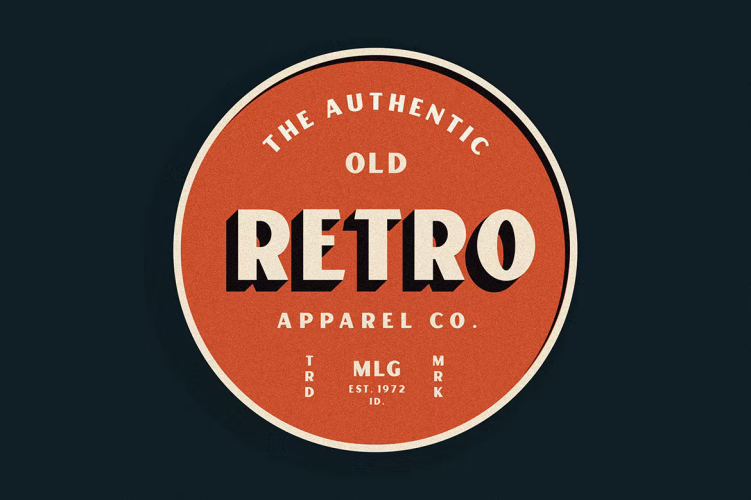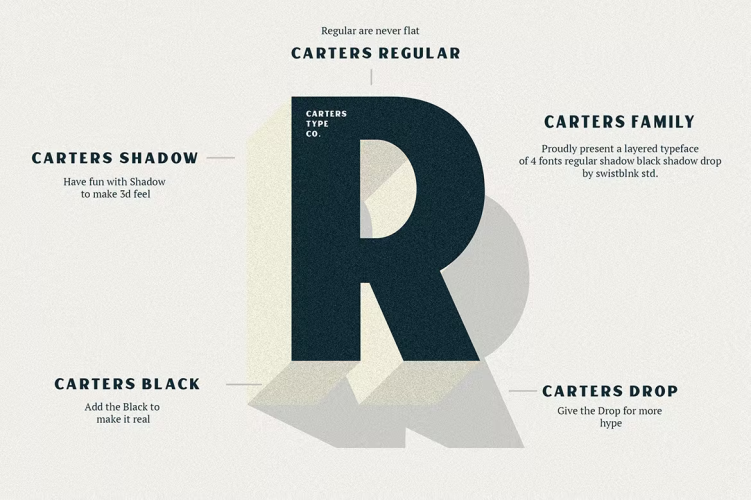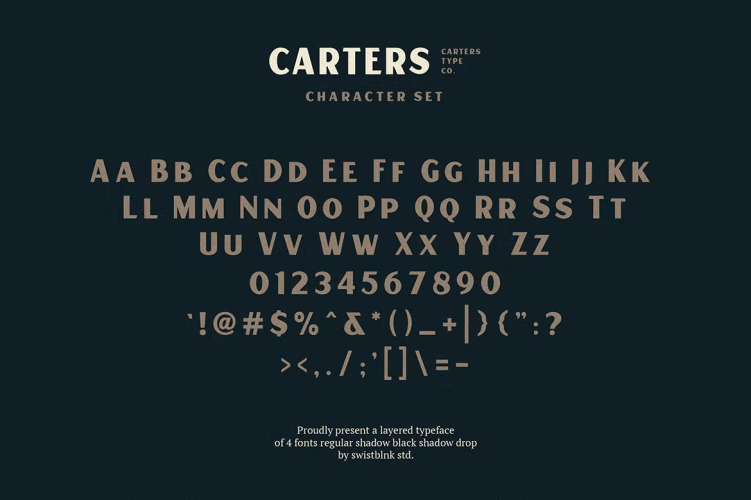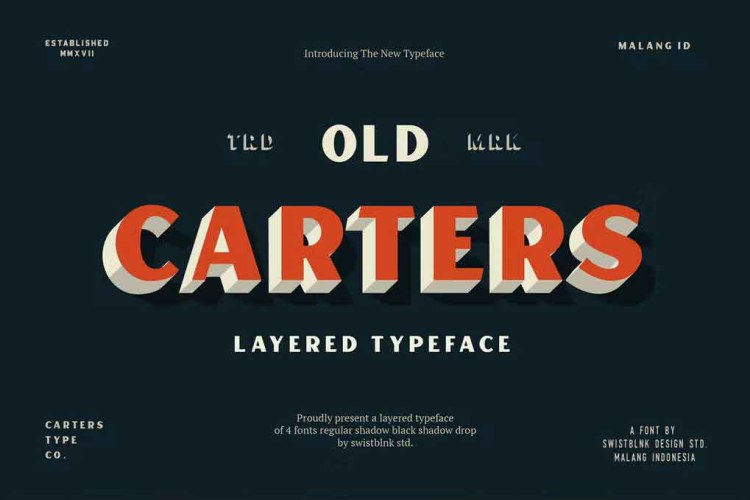
Carter Layered Font
Carters is Layered Typeface inspired by old retro signage. with the layered system you can easily make more retro feel on your next project.
This collection come with layered type system, there are so many possibilities combination.
Carter Layered Font is a Serif Fonts font that brings a professional and versatile look to your projects. Carters is Layered Typeface inspired by old retro signage .